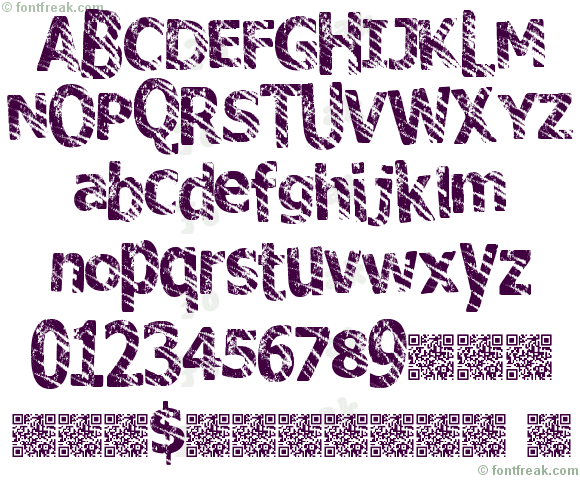
BigParty
BigParty is a unique display font designed by XEROGRAPHER FONTS, released in 2013 as freeware. This font falls into the decorative category, characterized by its playful and bold aesthetic that instantly attracts attention. The visual style of the BigParty font features a distinct irregularity in stroke weight, creating a lively and dynamic appearance. The contrast between thick and thin strokes adds depth, while the spacing gives each letter room to breathe, ensuring readability despite its artistic flair. Decorative elements, such as the jagged edges and quirky shapes of the letters, contribute to its whimsical charm.
Ideal for various creative projects, BigParty shines in applications such as children's party invitations, eye-catching movie posters, vibrant restaurant menus, and engaging social media graphics. Its playful nature makes it an excellent choice for designers aiming to convey a sense of fun and celebration. The font appeals to a wide range of users, including graphic designers, small business owners, and content creators looking to add a unique touch to their projects.
What sets the BigParty font apart is its ability to evoke joy and excitement, making it perfect for events and promotions that aim to capture attention. Whether you're creating an invitation for a birthday bash or designing eye-catching promotional materials, the BigParty font free download provides an accessible and versatile option. Its distinctive character ensures that your designs stand out, leaving a memorable impression on your audience. With its playful yet professional vibe, BigParty is a valuable addition to any designer's toolkit, enabling creativity to flourish in various applications.